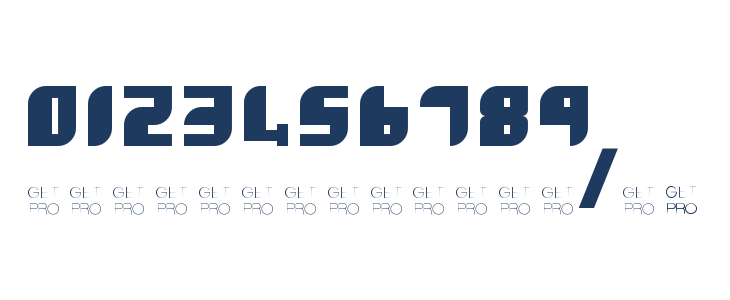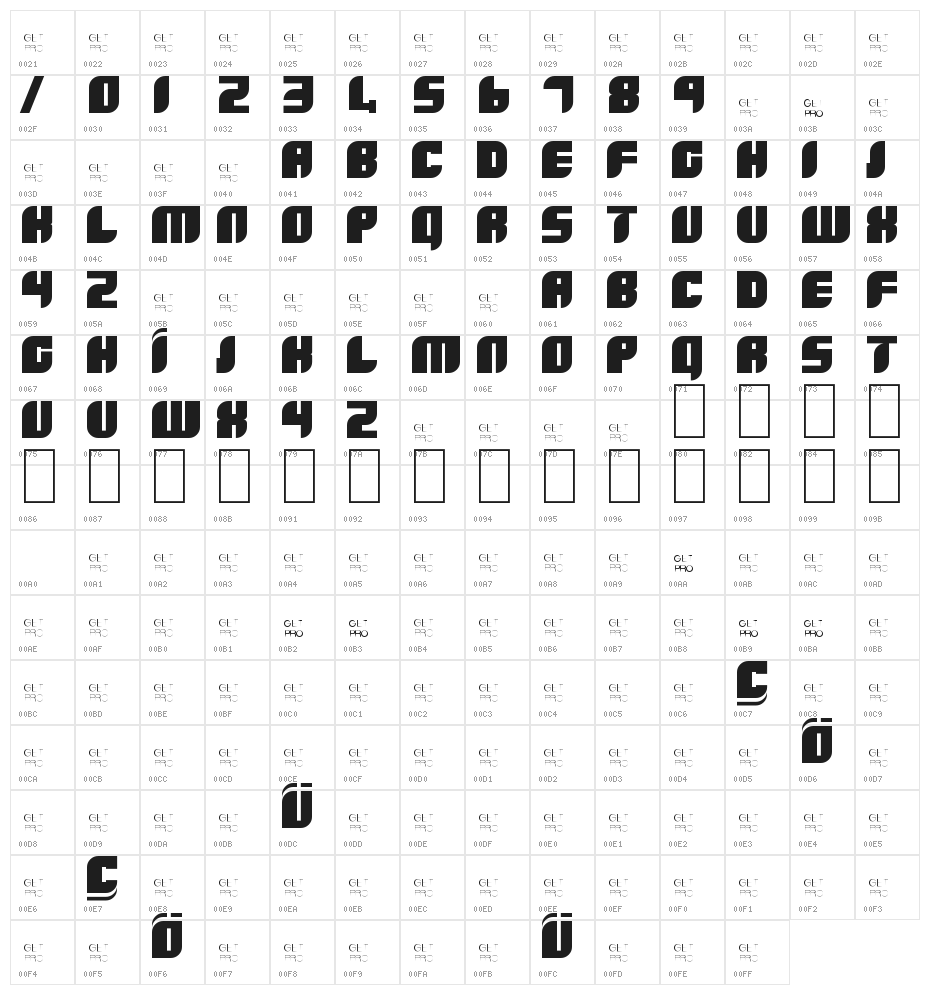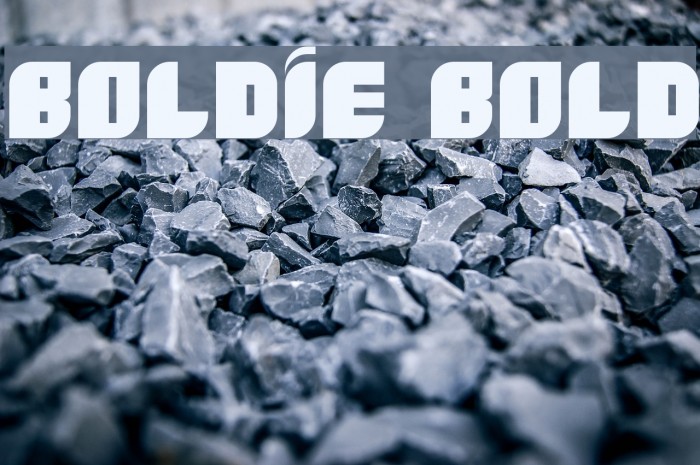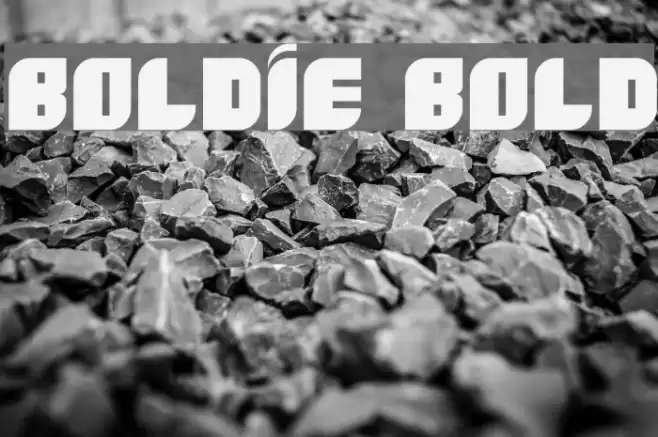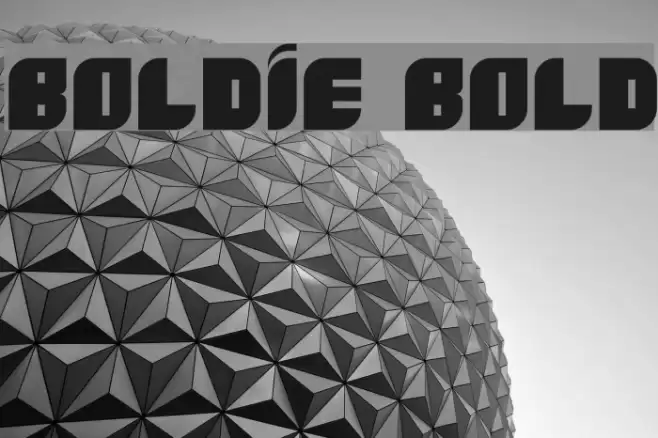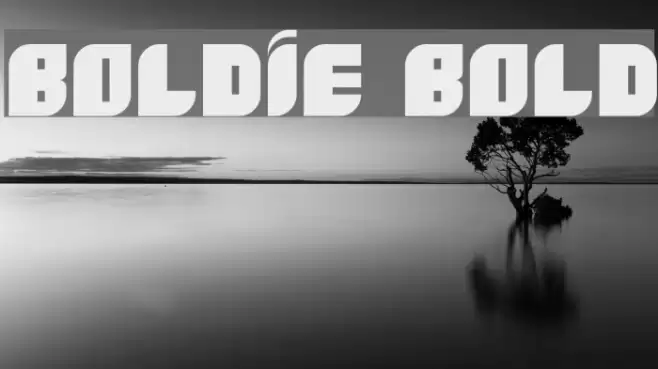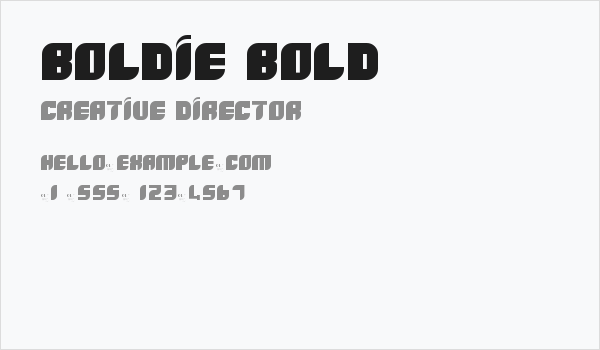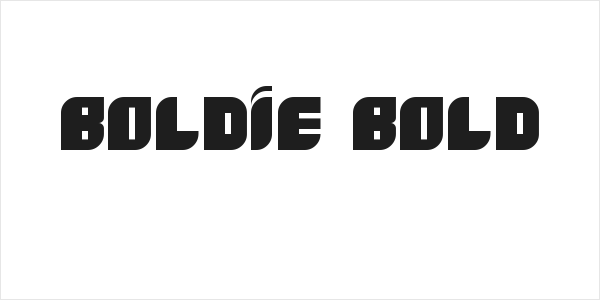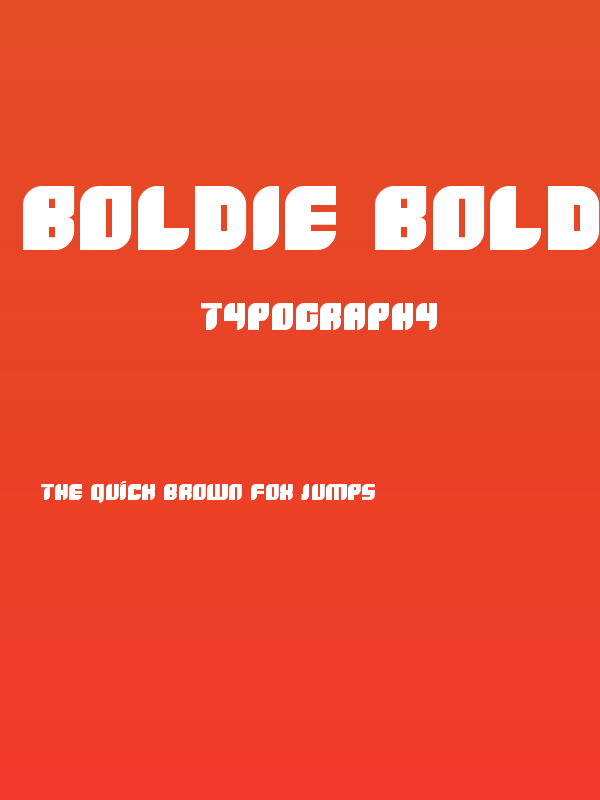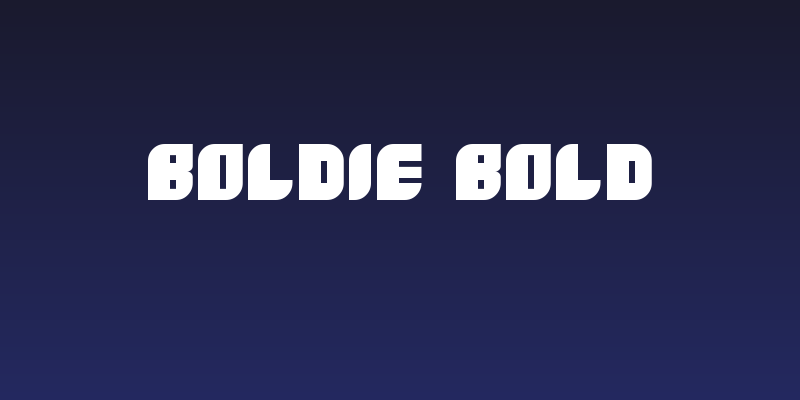
Boldie Bold Font
Boldie Bold Description
This font features a bold and striking design with thick, block-like characters that convey a sense of strength and modernity. The uppercase letters are uniform in height and width, creating a cohesive and impactful appearance. The lowercase letters maintain the boldness, ensuring consistency throughout the typeface. The numerals are equally robust, matching the overall aesthetic. This font's geometric shapes and solid forms make it ideal for attention-grabbing designs. The special characters are designed with the same boldness, ensuring they integrate seamlessly with the rest of the typeface.
| Proposed Projects | Ideal for branding, posters, headlines, and any project requiring a bold statement. |